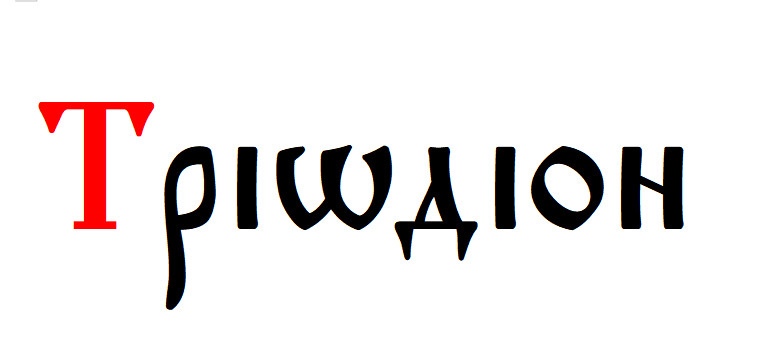
Triodion Unicode Font
Triodion Unicode Font is perfect for Orthodox liturgical publishing, Lenten season materials, Byzantine religious communications, pre-Easter worship preparations, monastic prayer books, Orthodox seminary publications, liturgical calendar design, and sacred seasonal advertising. This liturgical typeface works magnificently in both digital applications and print media where Orthodox tradition and Lenten spirituality are fundamental design requirements.
What makes Triodion Unicode Font so exciting is its profound interpretation of Orthodox Lenten tradition through sacred letterforms that seem inscribed with the same penitential spirit and contemplative devotion that characterizes the Church's preparation for the Great Fast and Easter celebration. The font features reverent characters with liturgical proportions, contemplative curves, and sacred details that evoke the solemn beauty of Orthodox Lenten worship and the spiritual journey of repentance and renewal that defines this most sacred season. Its penitential personality and liturgical heritage make it ideal for Orthodox institutions seeking to maintain authentic worship traditions while serving congregations who cherish the profound spiritual disciplines of Lenten observance.
The Triodion Unicode Font family includes comprehensive Unicode support for Orthodox liturgical texts with different sacred intensities, along with Lenten alternates and Byzantine ornamental elements. Each style maintains the typeface's liturgical character while offering extensive character sets including Church Slavonic letters, Greek liturgical text, seasonal numerals, penitential punctuation marks, and special symbols designed to enhance Orthodox communications and seasonal branding efforts across various liturgical contexts.
This remarkable typeface represents the perfect preservation of Orthodox liturgical tradition and contemporary digital functionality for Eastern Christian institutions. Whether you're developing Orthodox parish identities, creating Lenten worship materials, or designing religious educational publications, Triodion Unicode Font Free Download provides the sacred authenticity and versatility needed to serve Orthodox communities during the Great Fast. The font's liturgical heritage makes it particularly effective for Orthodox churches, monastic communities, religious publishers, and institutions preserving the rich traditions of Eastern Christian worship and the contemplative spirituality of Lenten preparation.
The meticulously preserved liturgical construction and optimized sacred performance in Triodion Unicode Font ensure both ecclesiastical authenticity and clear communication across all Orthodox applications. Its reverent presence makes it perfect for liturgical branding, seasonal religious materials, and sacred communications where its full Lenten character can create meaningful spiritual connections with Orthodox faithful seeking authentic worship experiences and the profound spiritual renewal that comes from observing the Great Fast according to ancient Christian tradition.